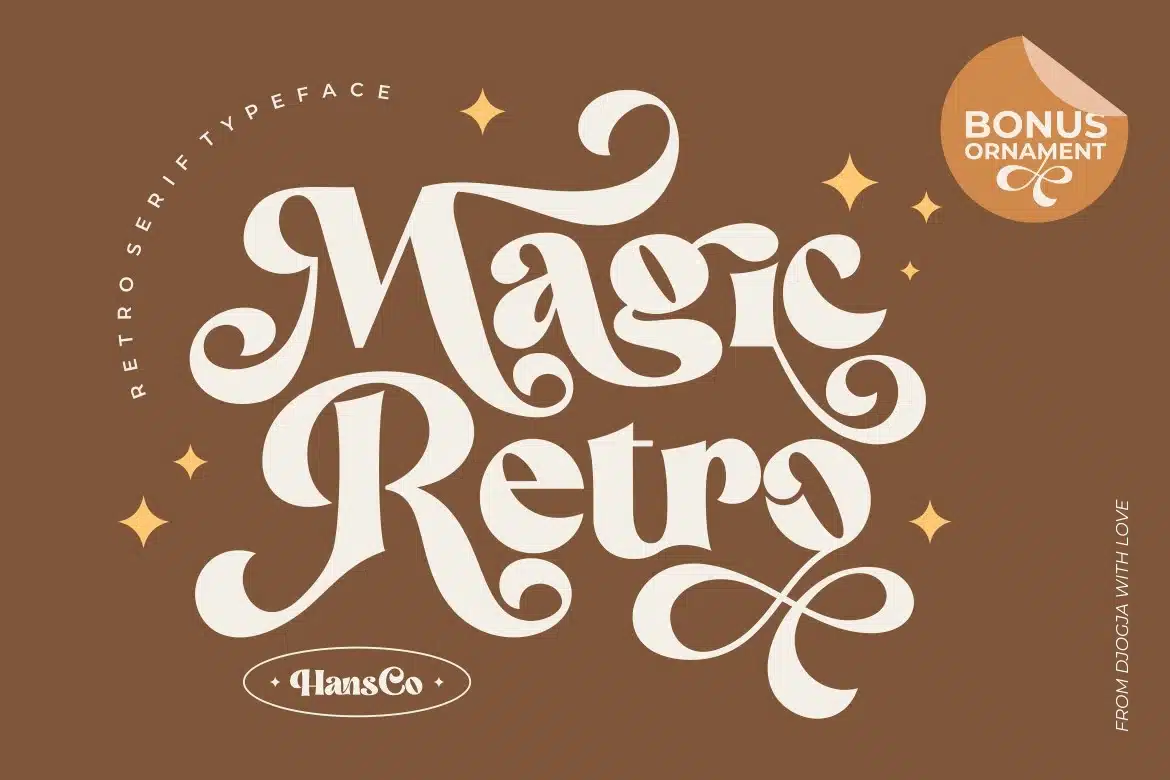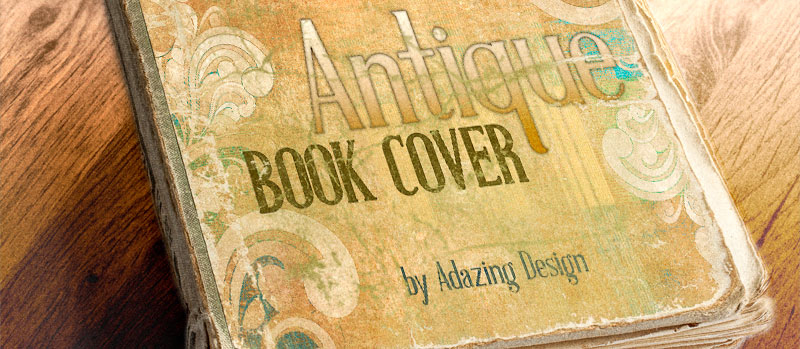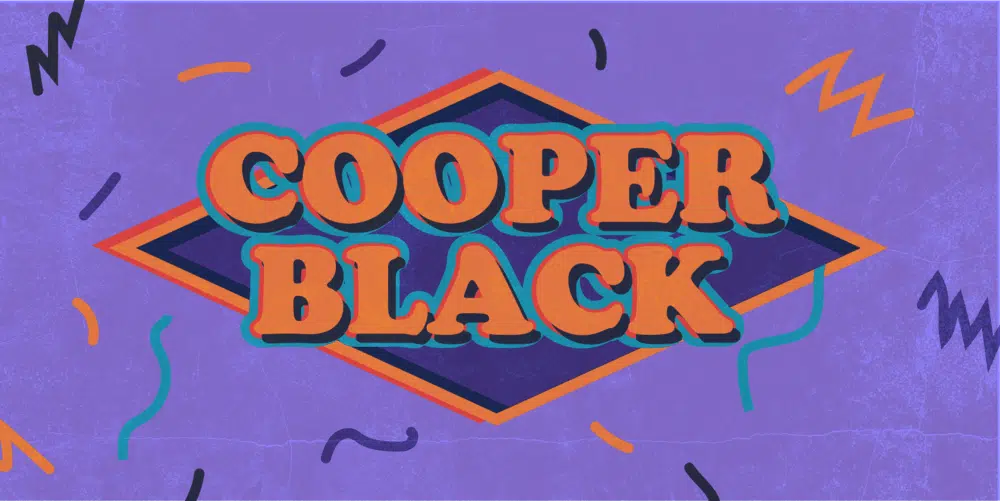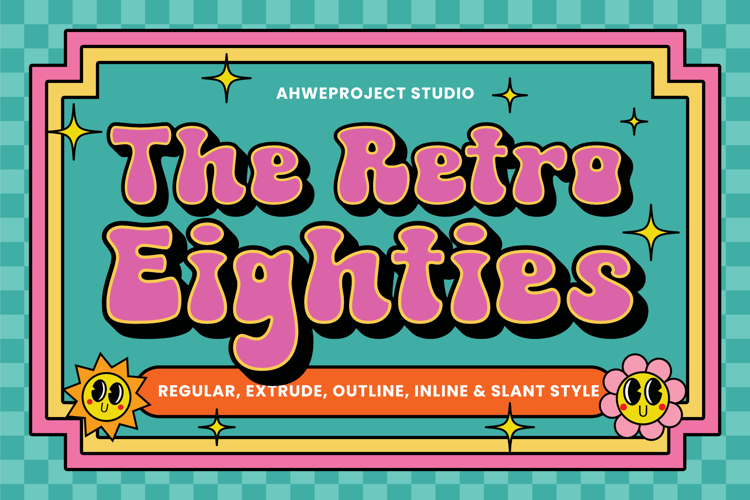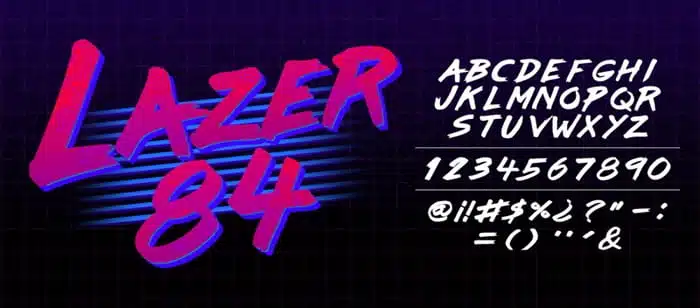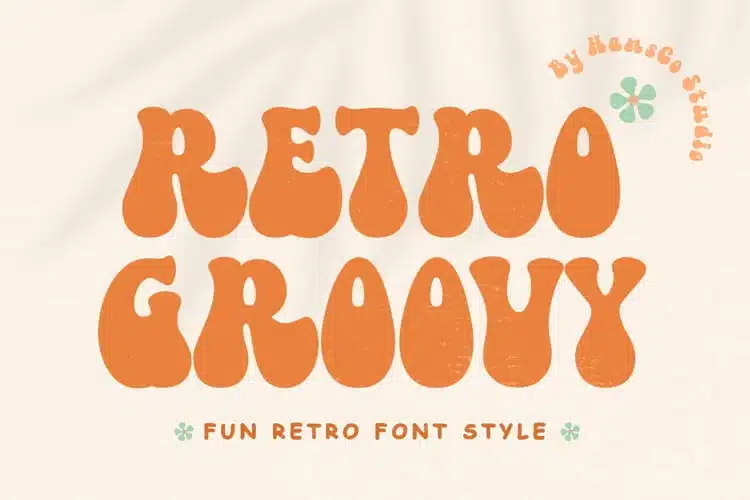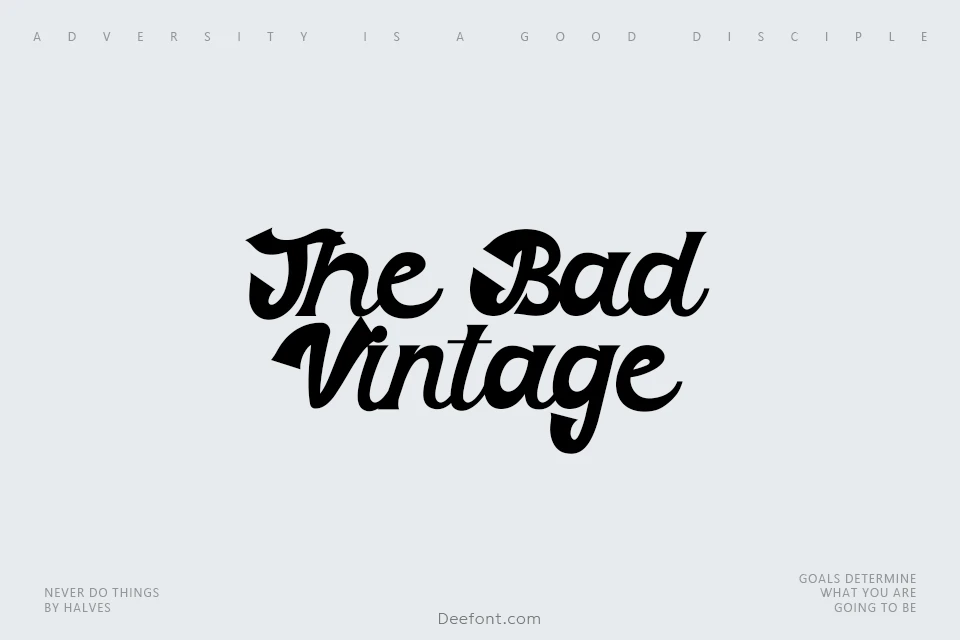
Vintage is always in style. Whether you’re designing a logo, a poster, packaging, or a t-shirt, having a collection of classic retro typefaces at your fingertips is essential. We’ve curated 12 genuinely free vintage fonts (with notes on licensing so you know exactly what you’re getting) that will add instant character and nostalgia to your next project.
The Classics
1. Keep on Truckin’ FW
A psychedelic, groovy font straight out of the 1960s counterculture. Its playful, bouncing letterforms are pure hippie-era fun. Designed by Brad O. Nelson of Brain Eaters Font Co. in 2003, this font captures that “yellow submarine” spirit with over 250,000 downloads to prove its enduring appeal. Get it here.
Best for: Retro album covers, festival posters, anything needing a dose of 60s sunshine.
2. Bilderberg
An elegant serif with sophisticated retro charm. Its refined letterforms bring a touch of mid-century class to any design. Get it here.
Best for: Headlines, sophisticated branding, editorial layouts.
3. Magic Retro
Playful and undeniably trendy, this font delivers a fantastic vintage aesthetic with multiple styles including swashes and slants. It’s PUA encoded, meaning you can access all those extra glyphs easily. Get it here.
Best for: Logos, packaging, invitations where you need that extra decorative flair.
The Bold & Funky
4. Cooper Black (note: verify actual free version)
Yes, the original is a classic. Its audacious, slightly cartoonish weight defined 60s and 70s advertising and pop art. It’s bold, it’s friendly, and it’s instantly recognizable. (Note: Be sure to download a legitimate free version or trial; the full commercial font requires licensing.). Get it here.
Best for: Headlines, posters, branding that demands attention with personality.
5. Retro Groovy (find similar free option)
If you want funky, rounded, 70s-inspired letterforms, this style is for you. (Look for similar free options like “Torkless Trial” for that groovy vibe.). Get it here.
Best for: Disco-themed designs, fun events, bold statements.
Art Deco & Elegant
6. Boomtown Deco
Inspired by the sleek, geometric lines of Art Deco, this font features elongated, stylized letters. It’s modern and retro all at once. Get it here.
Best for: Titles, logos, designs needing a touch of Gatsby-era glamour.
7. Antique Book Cover
This font mimics hand-lettering and fits seamlessly into a vast range of vintage graphic design projects. (Search for “IM Fell English” or “Old Standard TT” for similar authentic antique vibes.). Get it here.
Best for: Book covers, literary designs, anything needing an authentic handcrafted feel.
Retro Scripts & Display
8. The Bad Vintage
A stylish script with balanced thickness, elegant lines, and luxurious swashes. It combines handwritten charm with a clean, textured look. Get it here.
Best for: Invitations, logos, branding, projects needing sophisticated nostalgia.
9. Lazer 84
Channeling pure 1980s neon energy, this bold, brush-style font has a dynamic, slightly slanted graffiti-like appearance. It screams “Miami Vice” and arcade culture. Get it here.
Best for: Retro gaming graphics, 80s-themed parties, streetwear, edgy posters.
12. The Retro Eighties (Regular Style)
If you’re looking for a font that genuinely captures the “Eighties” vibe, this is the one to download. The Retro Eighties is a vibrant, playful typeface built on bold, rounded letterforms that embody the colorful and energetic spirit of 1980s design . It is perfect for projects that need to channel pure retro fun. Get it here.
Best for: Posters, packaging, headlines, and branding that aim for a happy, nostalgic feel. It includes a full set of uppercase and lowercase letters, numbers, and punctuation, making it versatile for various applications .
Quick Reference: What Makes a Font “Vintage”?
Vintage typefaces typically share these characteristics :
• Ornate and elaborate designs with detailed serifs
• Bold, powerful weights that command attention
• Aged effects like imperfections, spots, or pencil-like textures
• Historical references drawing from specific decades (20s Art Deco, 50s Rockability, 60s Psychedelic, 80s Neon)
Pro Tips for Using Vintage Fonts
Check your license. Many “free” vintage fonts are free for personal use only. If your project is commercial (logos, packaging, products for sale), verify the terms or purchase the necessary license.
Pair them wisely. A bold vintage headline pairs beautifully with a clean, simple sans-serif for body text. Let your vintage font be the star.
Don’t overdo it. One vintage element per design is often enough. Let that beautiful retro typeface breathe.
Test at size. Some vintage fonts shine huge but become unreadable small. Always test your font at the actual size it will be used.